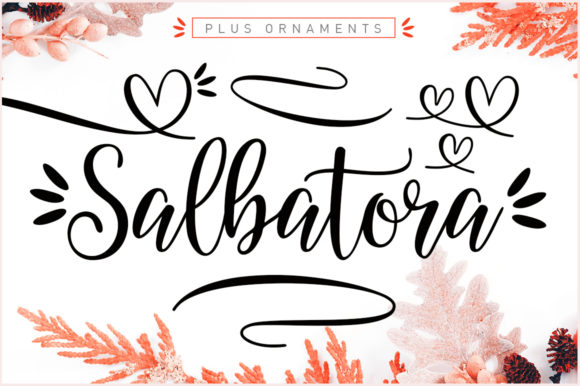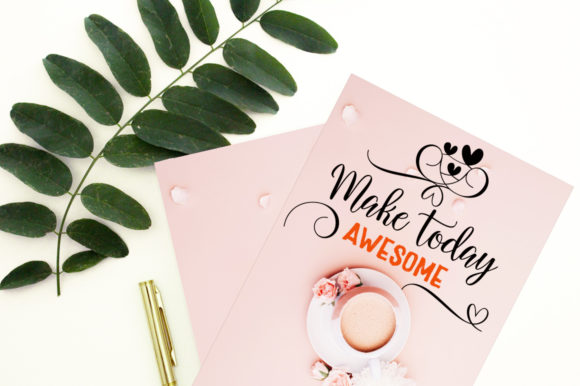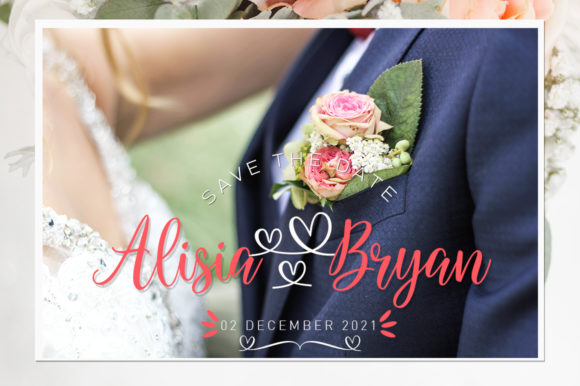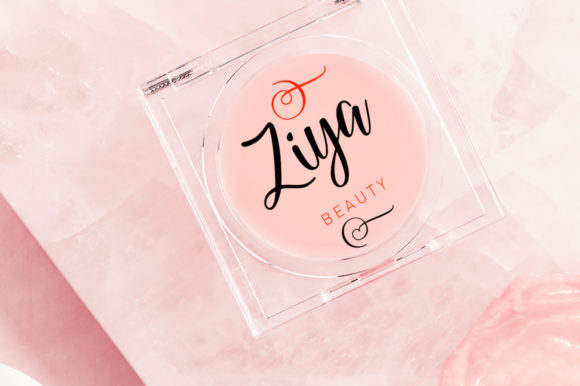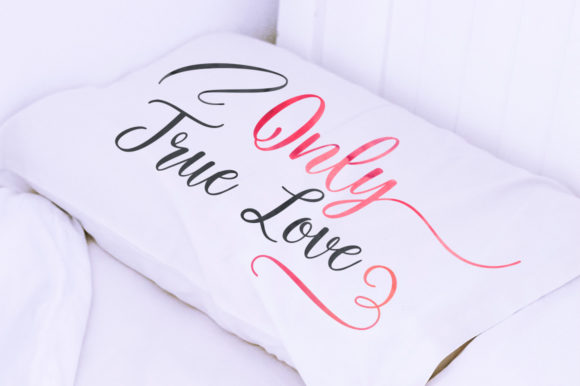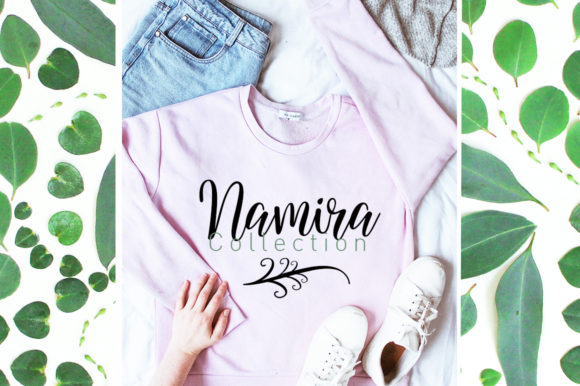
Salbatora Font
About Salbatora Font
Salbatora is inspired by classic typography and brings its own unique style to any design project. This fantastic script font is best suited for headlines of all sizes, as well as for blocks of text that have both maximum and minimum variations. Whether it’s for web, print, moving images or anything else – Salbatora will look spectacular.